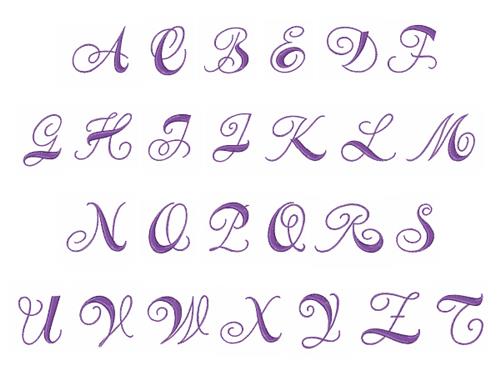
Embroidery Patterns is happy to present Curly Monogram Font machine embroidery font which has Flowing script machine embroidery font designed for personalized projects on pillows and quilts. It showcases vibrant purple curves with decorative swirls. Available in PES, DST & 11 formats. included. If you would like to view more embroidery fonts and alphabets please search our embroidery fonts page.